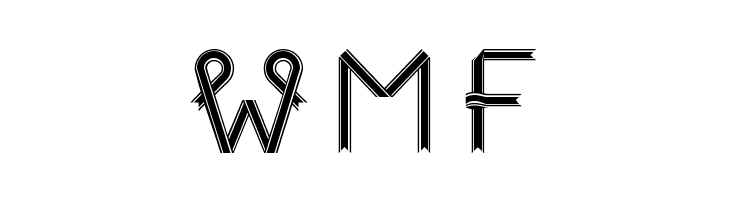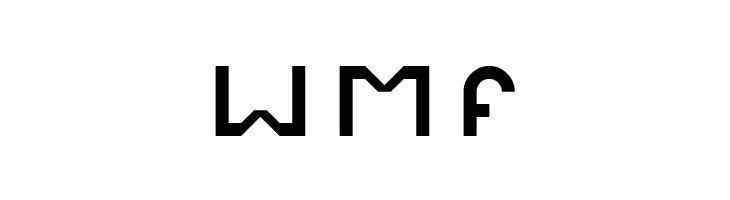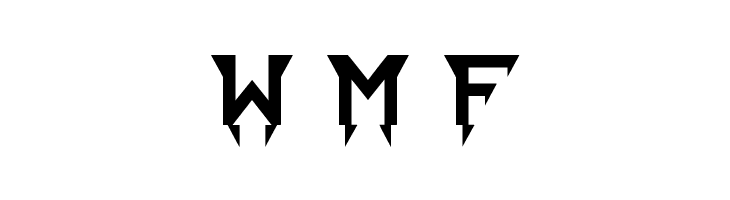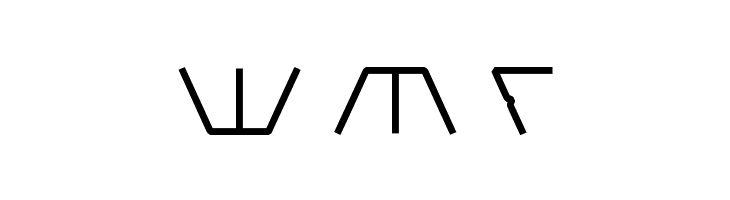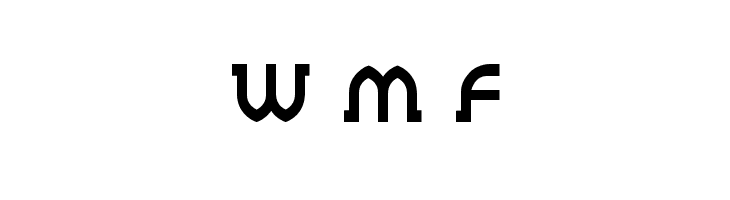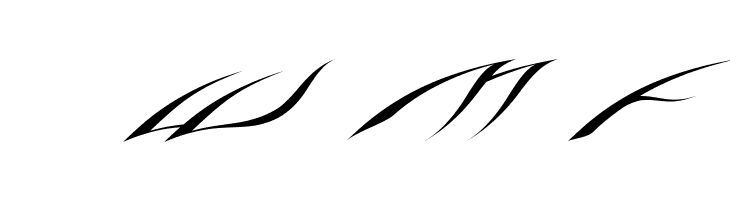
A bold, geometric font with angular, blocky letterforms.
An intricate, ribbon-like decorative font with elegant curves and lines.
A bold, angular font with lightning bolt elements for a dynamic look.
A bold, angular font with a dynamic, lightning-inspired design.
A bold, modern font with rounded geometric characters.
A bold, modern font with rounded edges and a playful aesthetic.
A bold, geometric font with consistent weight and strong presence.
A bold, futuristic font with geometric shapes and sharp angles.
A futuristic, geometric font with bold, angular lines.
A futuristic, angular font with a robotic and geometric design.
A bold, modern sans-serif typeface with strong geometric shapes and high legibility.
A modern, bold sans-serif font with a clean and geometric design.
A bold, condensed typeface with a modern and clean aesthetic.
A bold, condensed, and italic font with a modern and dynamic style.
A modern, bold, and italicized font with a clean and dynamic appearance.
A modern, condensed sans-serif font with excellent readability and versatility.
A modern, condensed sans-serif typeface with an italic style, offering clarity and efficiency.
A modern, italicized sans-serif font with clean lines and balanced proportions.
A modern, light sans-serif font with clean lines and excellent readability.
A sleek, modern, light italic font with low contrast and normal spacing.
A modern, geometric sans-serif font with excellent readability.
A modern, italicized sans-serif font with medium weight and normal spacing.
A modern, geometric sans-serif font with excellent readability.
A thin, modern sans-serif font with excellent readability and a sleek appearance.
A sleek, modern, thin italic font with excellent legibility and a minimalist aesthetic.
A bold, geometric font with a futuristic and edgy style.
A dynamic script font with sharp, angular strokes and a modern, edgy style.